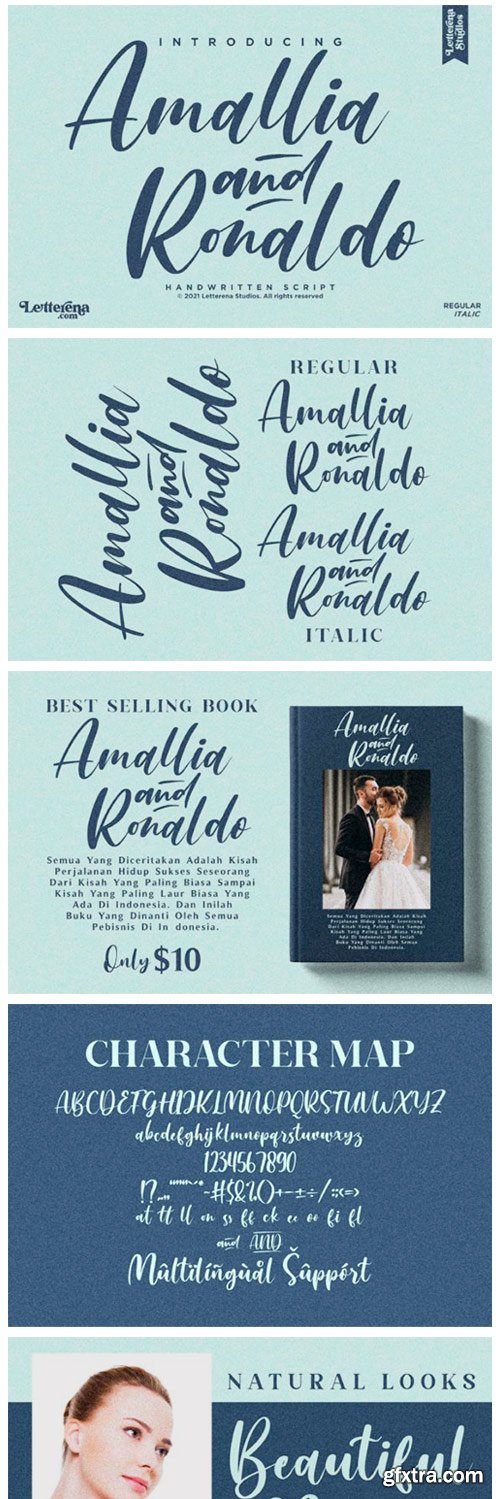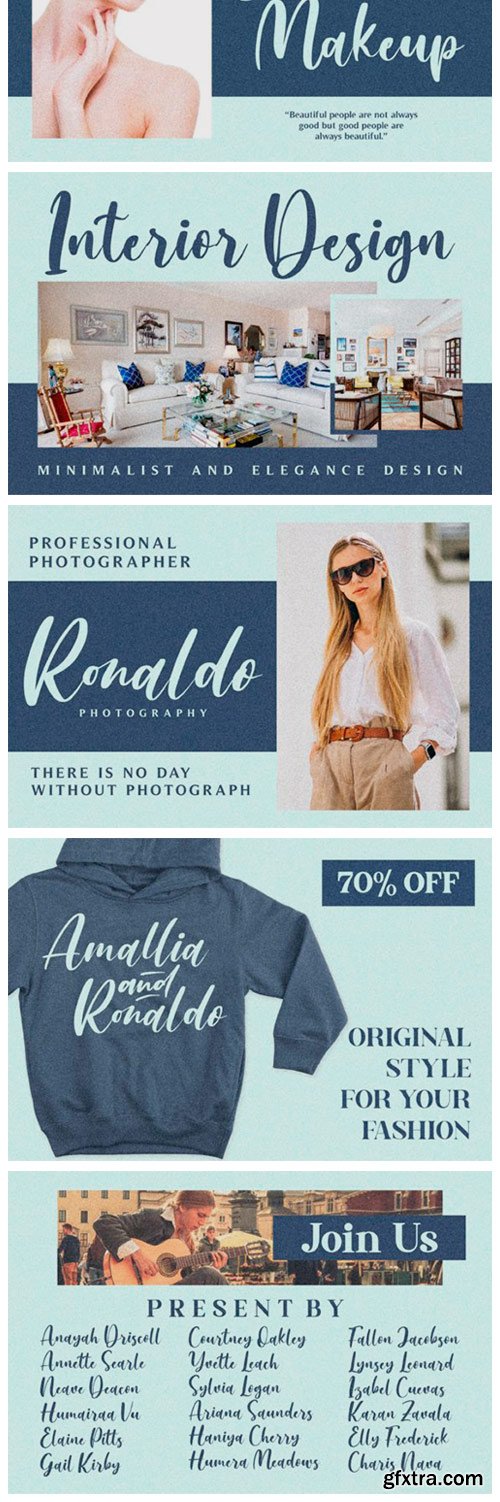
Amallia and Ronaldo Font
Amallia and Ronaldo is an elegant and dainty handwritten font that features sweet and delicate swashes. This original look will appeal to a wide range of crafty ideas, from letterheads and titles, to stationery. This font is PUA encoded which means you can access all of the glyphs and swashes with ease!